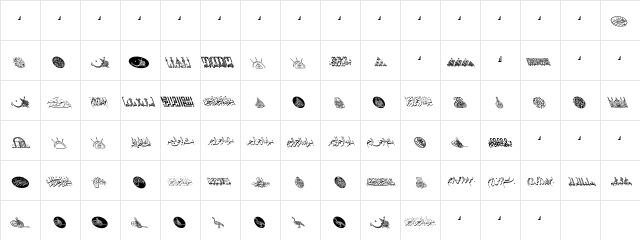
ALAWI-3-18 Normal
Design Context for ALAWI-3-18 Typeface
ALAWI-3-18 is a composed and adaptable typeface that performs quietly and consistently across a wide range of design contexts.